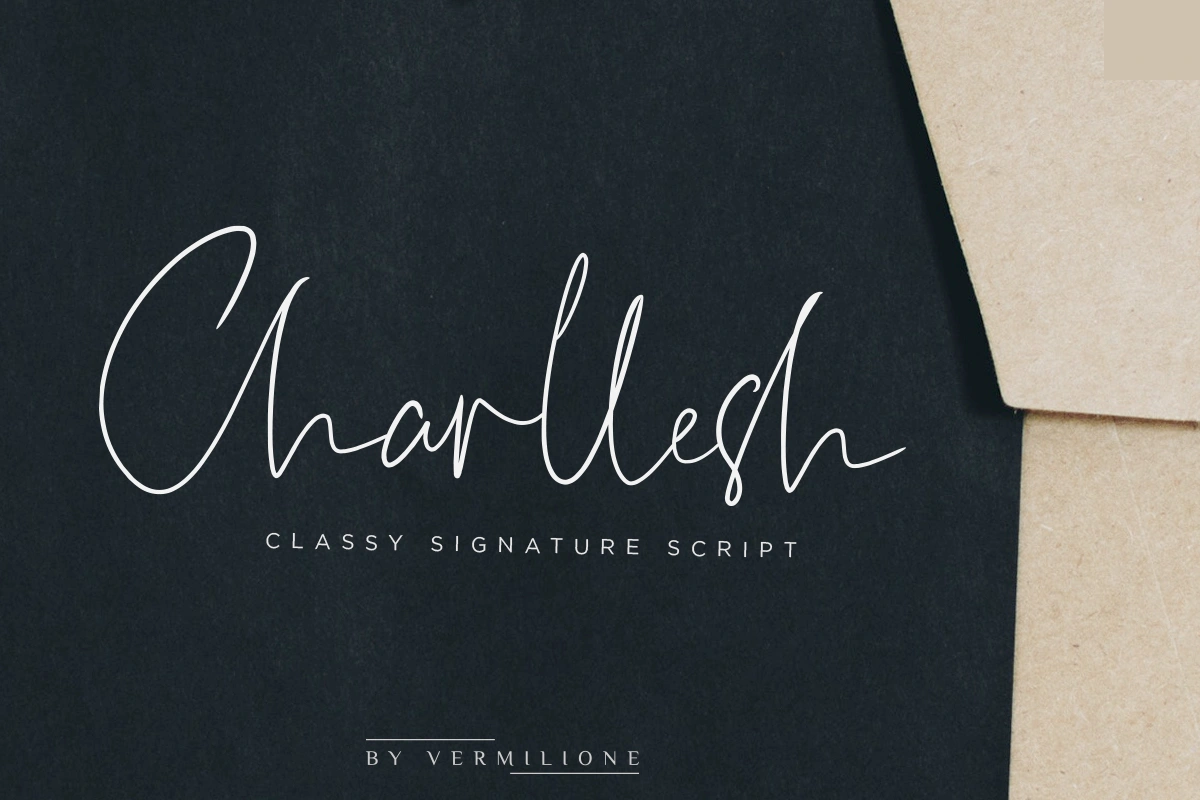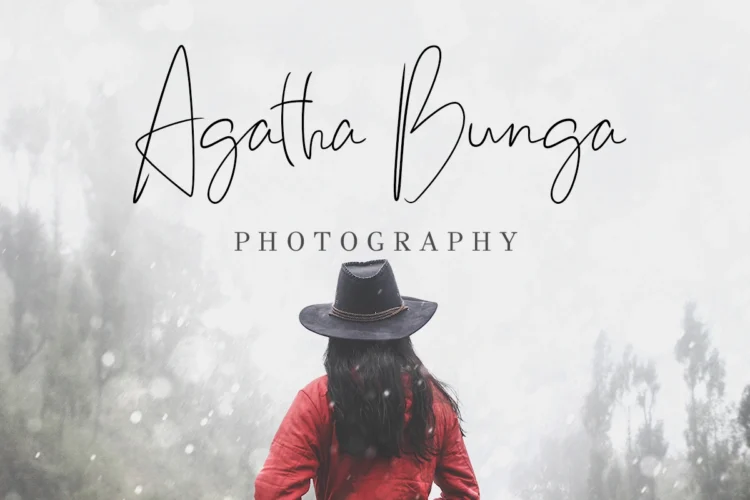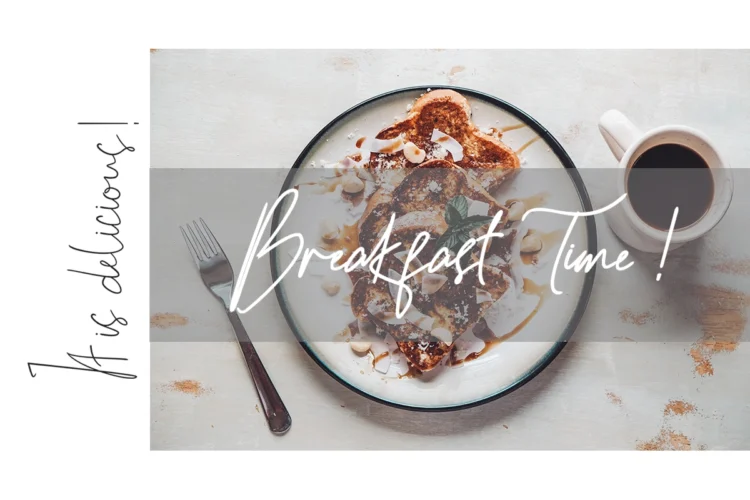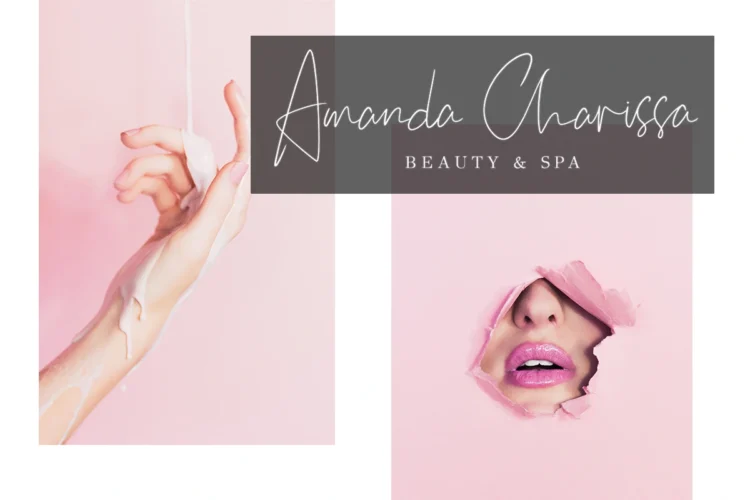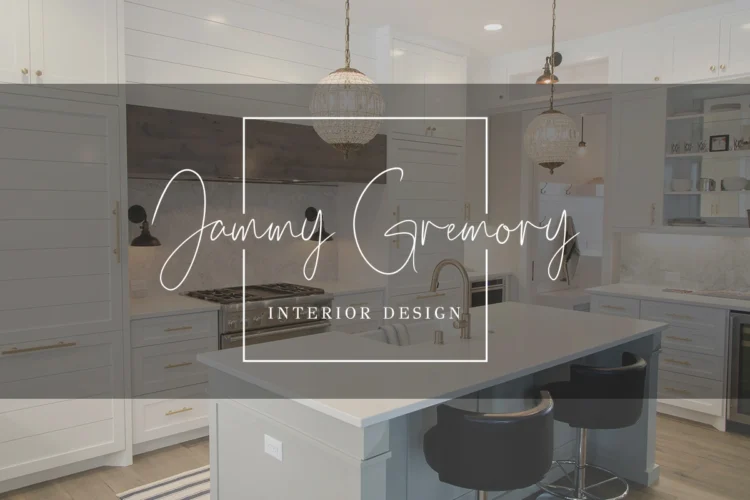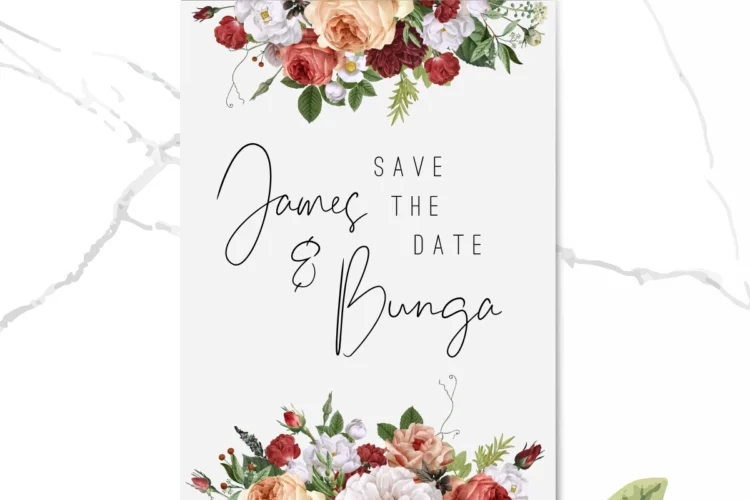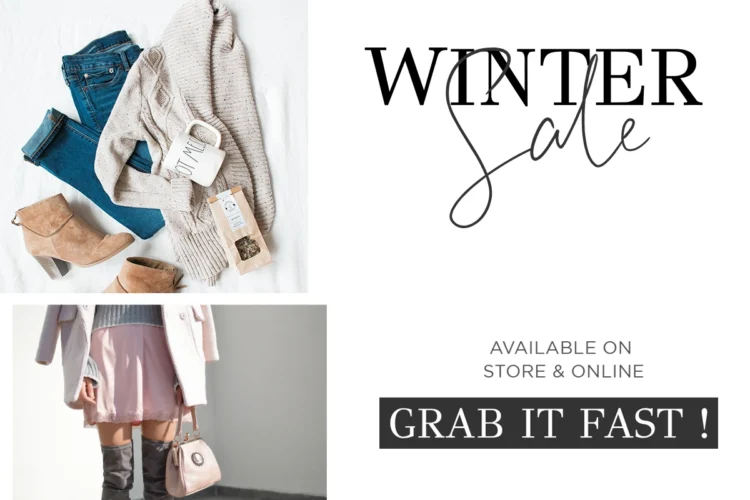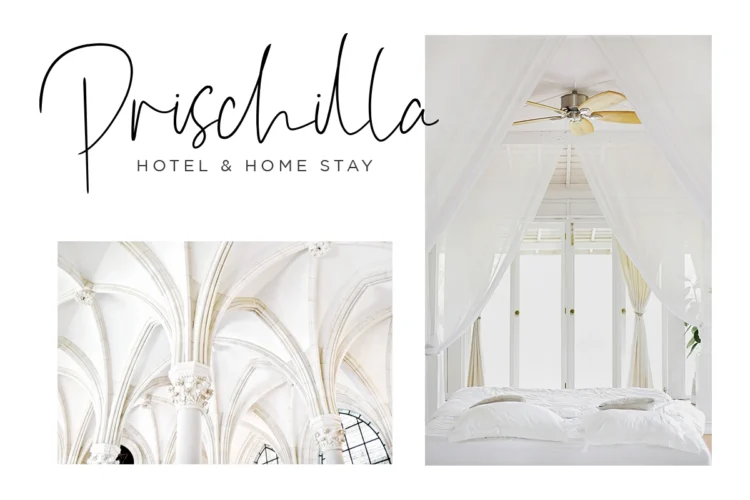
Charllesh
Charllesh is a beautifully refined signature script font designed to bring a touch of elegance and personality to any design. With its flowing, handwritten style and delicate curves, Charllesh captures the essence of a personal signature — stylish, smooth, and effortlessly classy.
Perfect for use in branding, logo design, wedding invitations, social media, fashion labels, and product packaging, this font gives your project a luxurious and sophisticated feel. Its natural rhythm and slightly edgy yet feminine character make it ideal for both formal and creative applications.
Charllesh – Classy Script Font